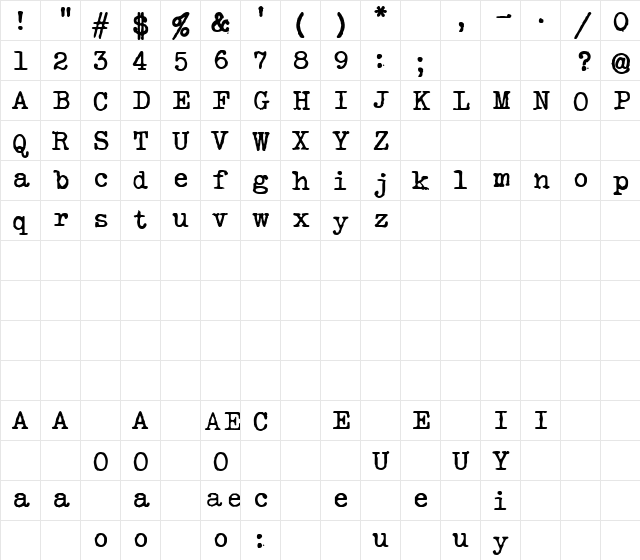
Silk RemingtonSBold Regular
Design Context for Silk RemingtonSBold Typeface
Silk RemingtonSBold offers clean, dependable letterforms without strong stylistic allegiance, making it a practical choice for designers who need flexibility. Its bold stroke weight gives it real presence on the page.